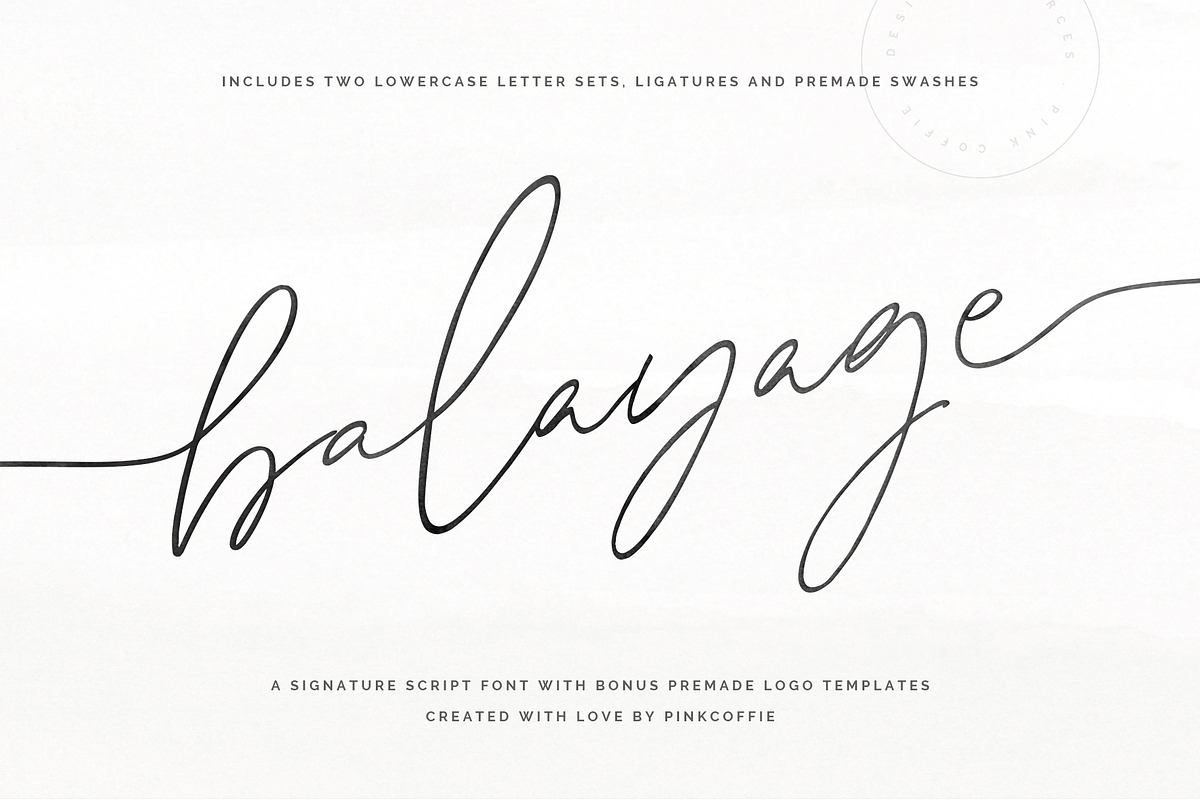
Balayage | Signature Script + Logos Free Download is a stylish and modern handwritten script font designed to mimic the look of a natural, flowing signature. Perfect for personal branding, fashion labels, beauty products, social media content, and wedding stationery, this font adds a chic and professional handwritten touch to any project.
Alongside the elegant script typeface, Balayage includes bonus pre-made logo templates, making it even easier to create a cohesive and upscale visual identity in minutes. The combination of smooth strokes, realistic pen pressure, and thoughtful ligatures gives your designs a clean yet personal aesthetic.